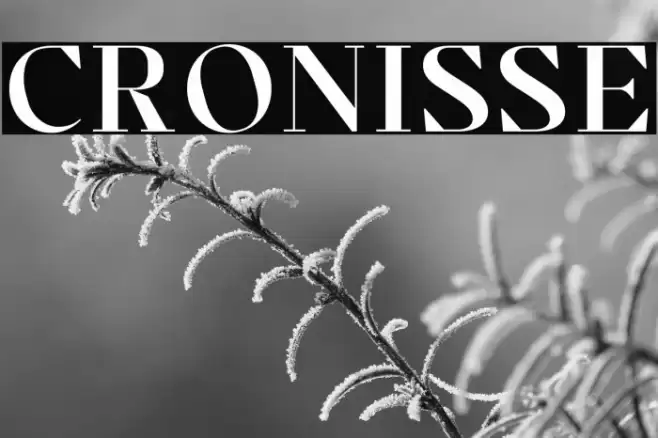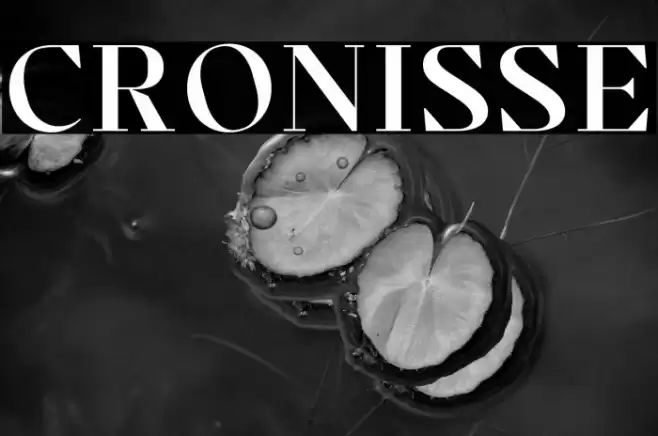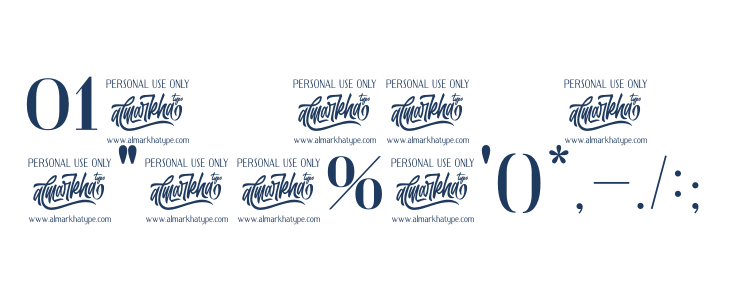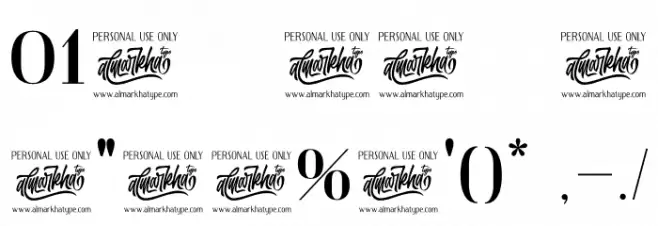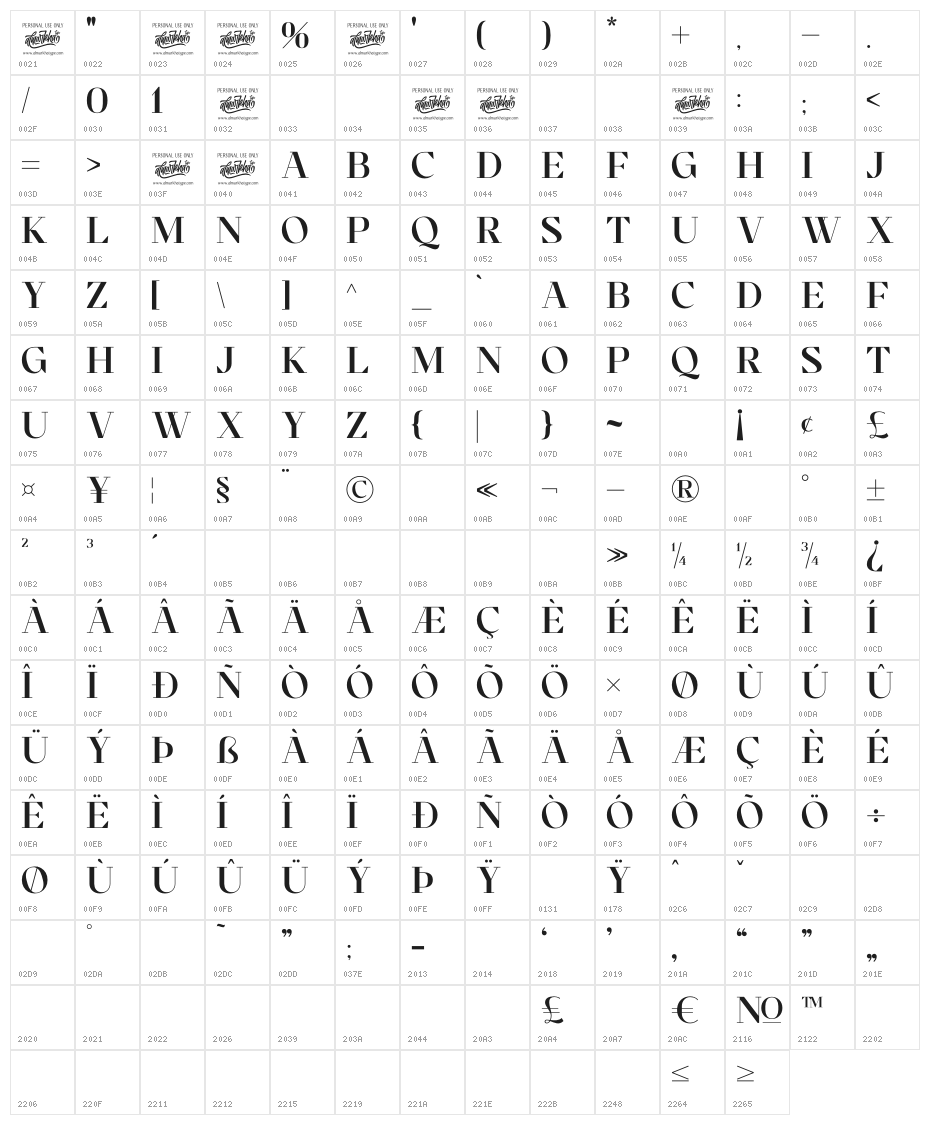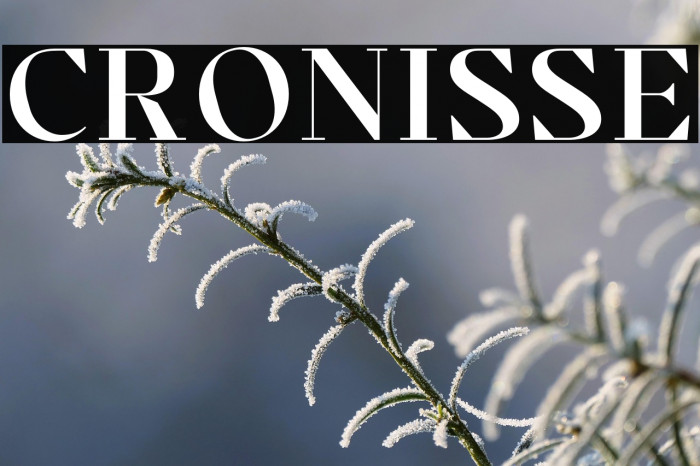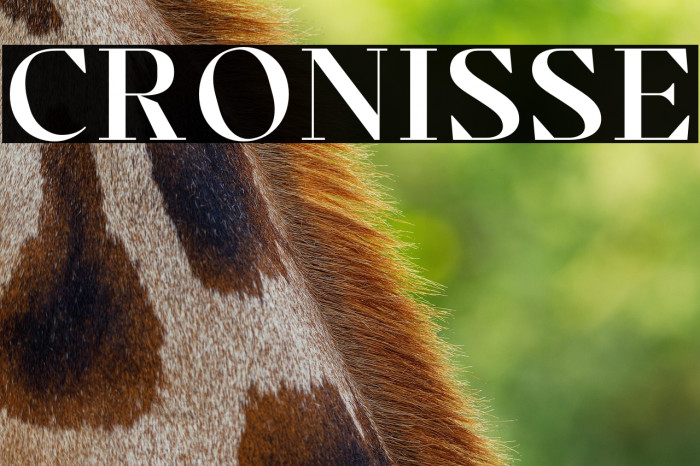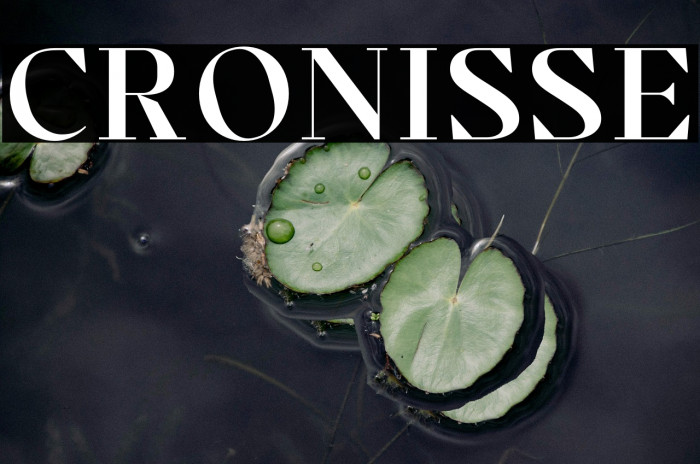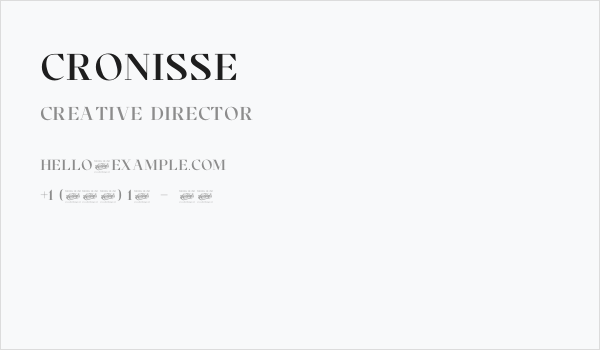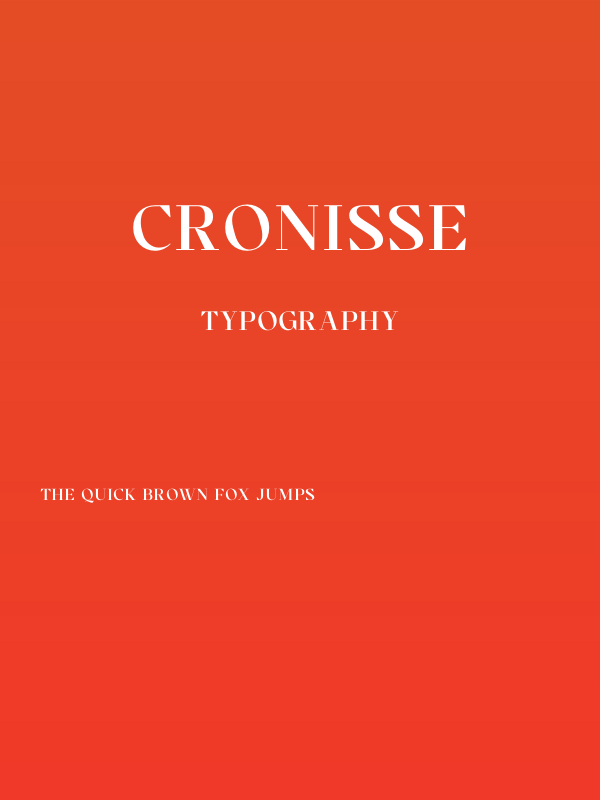
Cronisse Font
Cronisse Description
This font features a classic serif style with elegant, elongated strokes and a refined appearance. The uppercase letters are tall and stately, while the lowercase letters maintain a consistent flow with subtle curves. The numerals are clear and distinct, making them easily readable. Special characters are designed with a touch of sophistication, adding to the overall elegance of the font. The contrast between thick and thin strokes is medium, providing a balanced look that is neither too bold nor too light. The character spacing is normal, ensuring readability and a harmonious appearance across different text lengths.
A classic serif font with elegant strokes and medium contrast from Uncategorized fonts.
- Proposed Projects: Ideal for formal invitations, editorial design, branding projects, and luxury product packaging.
- Overall Style: Classic